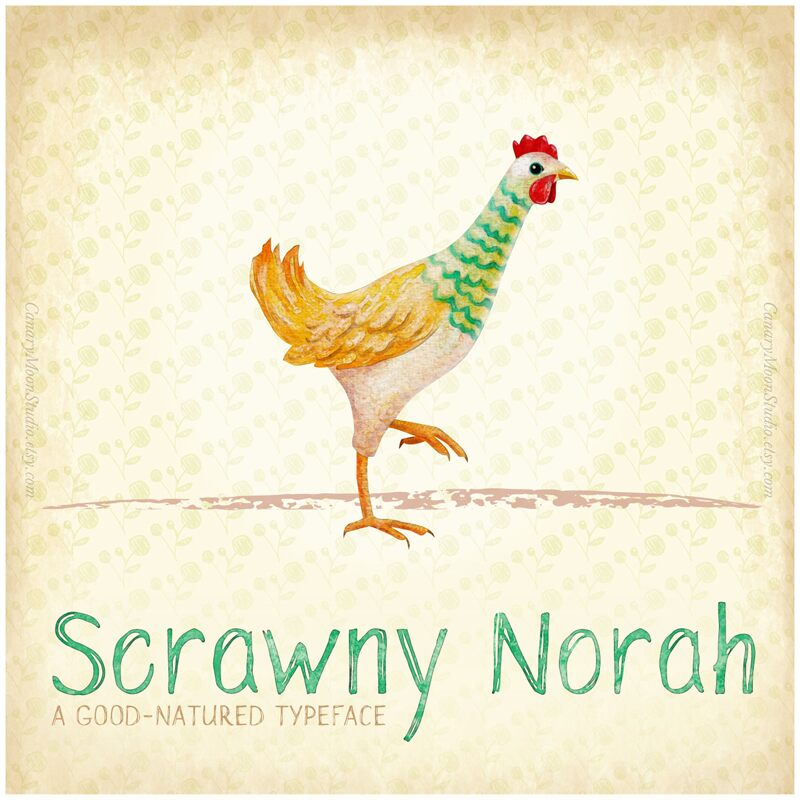
Scrawny Norah Demo Regular
Scrawny Norah, a captivating script font crafted by CanaryMoonStudio, exudes a distinct sense of raw, unapologetic charm. With its uneven strokes and a touch of imperfection, this font radiates a delightfully "trash" aesthetic that effortlessly captures the essence of a rebellious, handwritten expression. The irregular flow of the letters and the subtle variation in line thickness lend an alluring, organic quality, inviting the viewer to explore the font's unique personality.
Scrawny Norah's versatility shines through its ability to seamlessly transition between different design contexts. Its distinctive style lends itself well to a variety of applications, from edgy branding and editorial layouts to captivating typography-driven designs. Whether used for headlines, subheadings, or even body text, Scrawny Norah's distinctive flair has the power to elevate any project, adding a touch of authenticity and personality that is sure to leave a lasting impression.